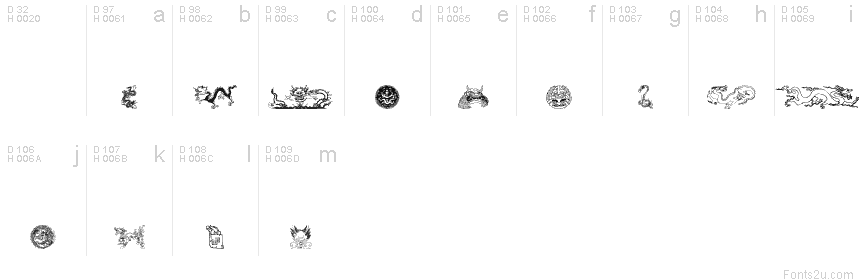
Dragons
Dragons font by Lime is a free fantastic dingbat typeface packed with snarling beasts, heraldic shields, and swirling, smoke-like flourishes. Each glyph feels like an inked illustration from a worn fantasy tome, with dense linework and gritty texture that holds up even when scaled large. Use it sparingly as a graphic accent and it instantly pushes a layout into full mythic mode.
Using Dragons, you can conjure dramatic chapter openers, RPG character sheets, fantasy book covers, game maps, posters, stickers, and merch. The icons work beautifully as spot illustrations or framed emblems, especially when set oversized against a calm sans serif for text. This free font rewards bold contrast in scale and lots of breathing room around each dragon, letting every fang, wing, and coil stay sharp and legible.